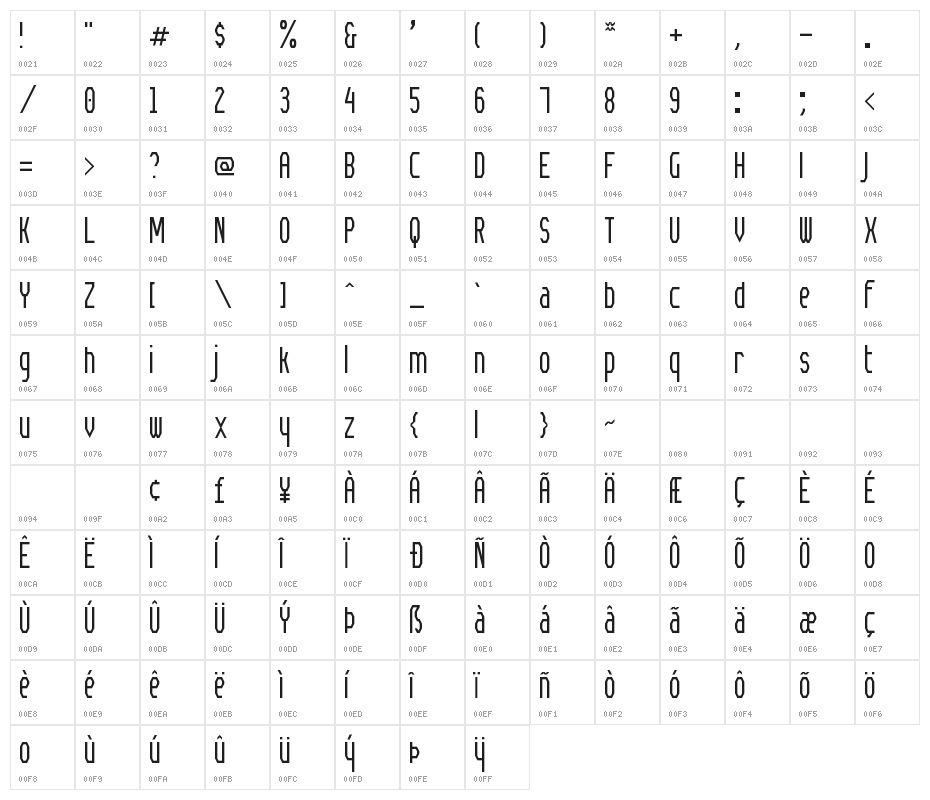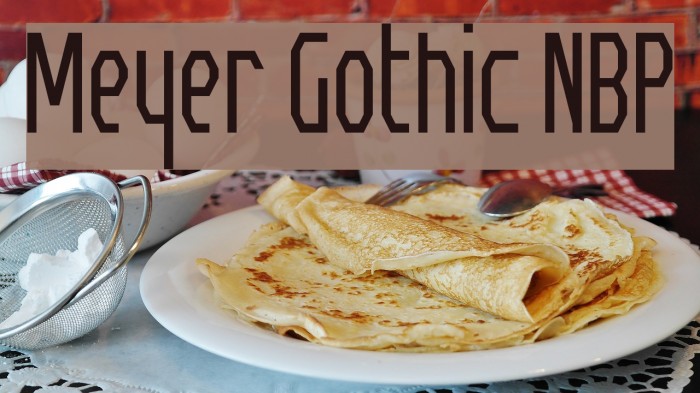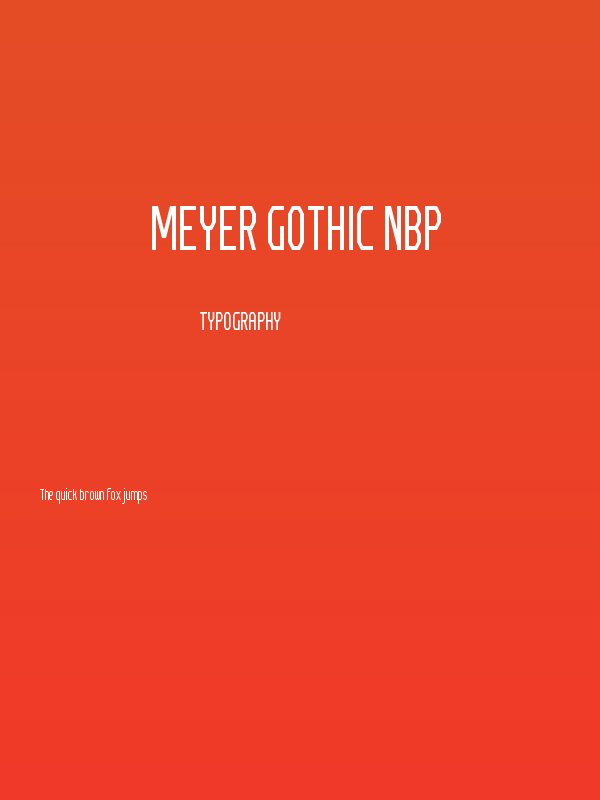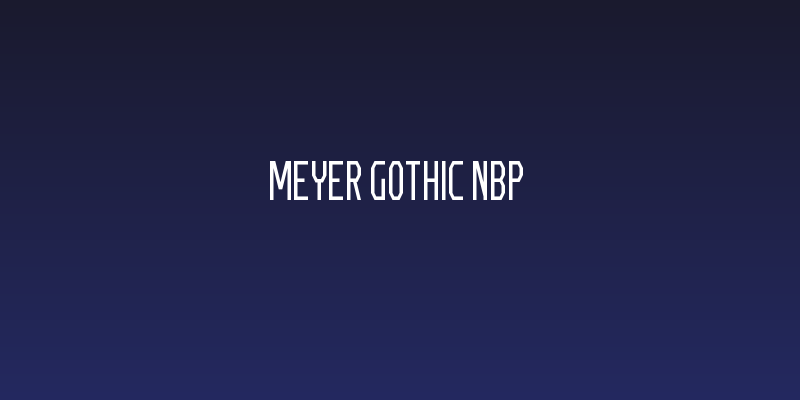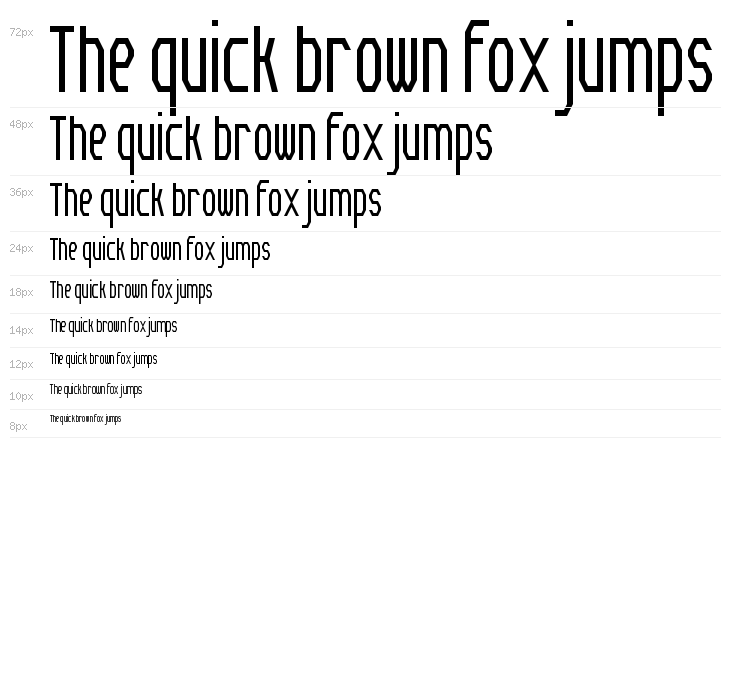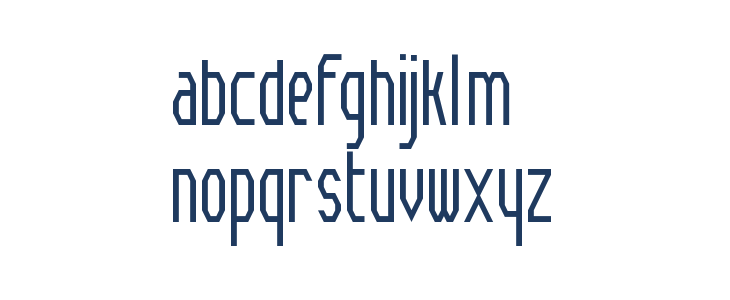
Meyer Gothic NBP Font
Meyer Gothic NBP Description
This font features a geometric and angular design, characterized by its sharp edges and clean lines. The uppercase letters are tall and narrow, giving a sense of height and elegance. The lowercase letters maintain a consistent style, with a slightly more rounded appearance compared to the uppercase. The numerals are uniform in height, aligning well with the uppercase letters, and the special characters are designed to match the overall aesthetic. The font's structure is modern and minimalistic, making it suitable for a variety of design applications. Its distinct style is both eye-catching and versatile, allowing it to stand out in headlines while remaining legible in smaller text sizes.